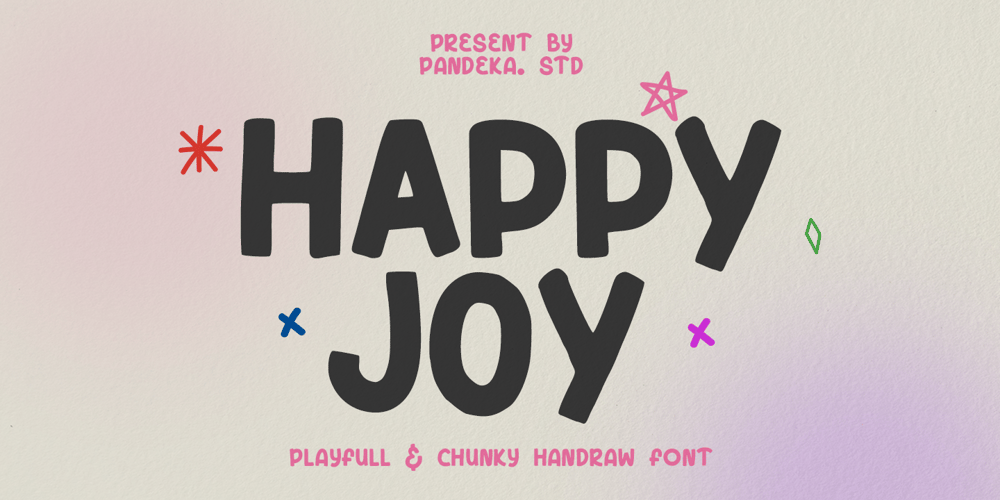
Happy Joy Font Family was designed by Sagara Nararya and published by Pandeka Studio. Happy Joy contains 1 styles and family package options. Introducing Happy Joy – A playful, chunky font and graphics!This adorable all caps font is perfect for creating fun instagram posts, greeting cards, stickers (hello small business owners!). Comes with a few ligatures to ensure a perfectly bouncy little font that flows nicely :)What’s Included? Happy Joy Main Files Unique Gylph Letters Instructions (Access special characters in all apps, even in Cricut Design) Accessible in Adobe Illustrator, Adobe Photoshop, Microsoft Word even Canva! PUA Encoded Characters. Fully accessible without additional design software Language Support: Danish, English, Estonian, Filipino, Finnish, French, Friulian, Galician, German, Gusii, Indonesian, Irish, Italian, Luxembourgish, Norwegian Bokmål, Norwegian Nynorsk, Nyankole, Oromo, Portuguese, Romansh, Rombo, Spanish, Swedish, Swiss-German, Uzbek (Latin)Feel free to follow, like and share. Thanks so much for checking out my shop!Have a great day!Pandeka Studio